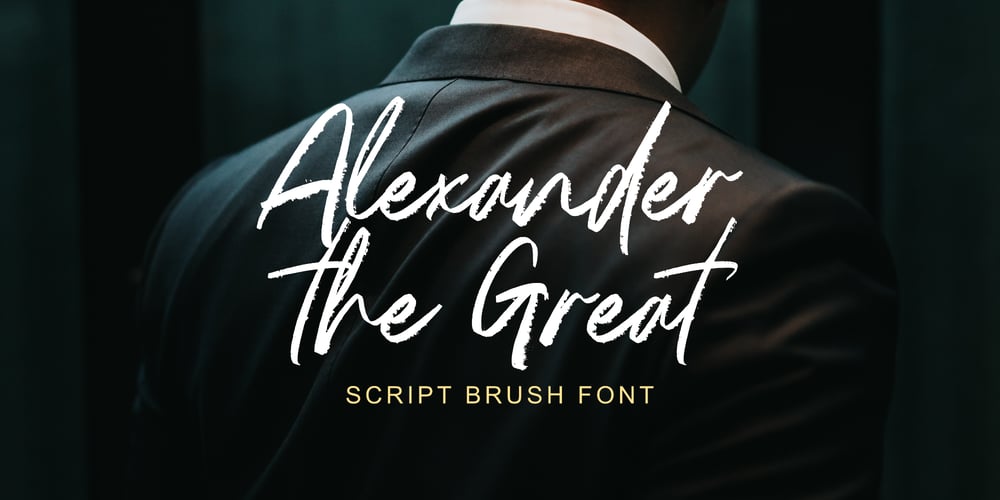
Alexander The Great Font Family was designed by Ibnu Utomo and published by Omotu. Alexander The Great contains 1 styles and family package options. BRIGHT LIGHT! A handwritten script brush font, all caps. BRIGHT LIGHT font is suitable for branding, logotype, apparel, T-shirt, Hoodie, product packaging, quotes, flyer, poster, book cover, advertising, etc.Whats Include? Opentype support Multilingual support PUA encoded Features: All uppercase, numerals, punctuations, and ligatures Accessible in the Adobe Illustrator Glyphs panel, or under Stylistic Alternates in the Adobe Photoshop OpenType menu, Adobe InDesign, Corel Draw, even work on Microsoft Word Please message me if you’re unsure of any language support.Thanks for looking, and I hope you enjoy it! Please don’t hesitate to drop me a message if you have any issues or queries.